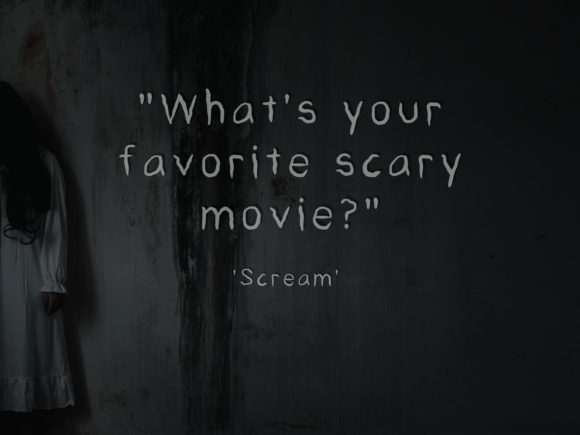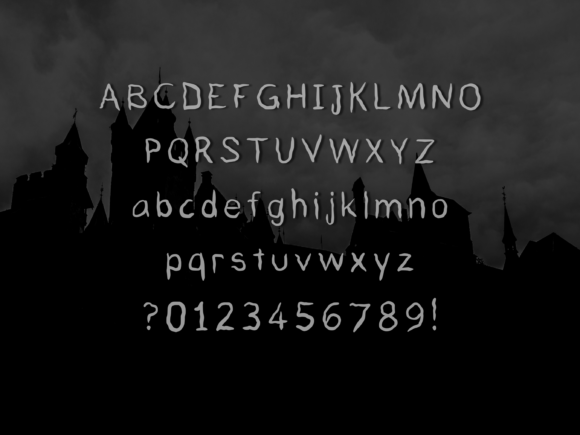
Introduction to Quiver Font
Have you ever been working on a creative project, pouring your heart and soul into it, only to be stuck on the perfect font to convey the atmosphere you envision? I’m sure many designers have been there, searching for that elusive typeface that will elevate their design from ordinary to extraordinary. For those who crave a touch of eeriness and suspense in their work, I’m excited to introduce you to the Quiver Font – a handwritten typeface that will make your designs shiver with fear.
Whether you’re designing a spine-tingling poster, crafting a chilling party invitation, or adding a haunting touch to your haunted house décor, the Quiver Font is the perfect design resource to deliver an unmistakable aura of fright and trepidation. With its unique, hand-drawn style and transparent background, this high-quality font is a must-have for designers who want to take their creative projects to the next level.
Key Features of Quiver Font
- High-quality, unique font design ideal for creative projects, with a transparent background that allows for seamless integration with any design.
- Designed with precision and care, the Quiver Font boasts a high-resolution (up to 300 DPI) and scalable design, perfect for use in print and digital media.
- Unique characteristics include its modern, minimalist aesthetic and versatile style, making it suitable for a wide range of creative projects, from branding to editorial design.
Honest Review: Quiver Font
As a designer, I’m always on the lookout for high-quality design resources that can elevate my creative projects. Recently, I stumbled upon the Quiver Font, and I must say it’s been a game-changer for me.
Here are some aspects that work well for me:
- ✨ Unique and creative style that adds a touch of sophistication to any project.
- ✨ High-quality design that’s perfect for logos, branding, and other design elements.
- ⚠️ The font doesn’t have a transparent background option, which can make it difficult to use in certain design scenarios.
- ⚠️ The font family is relatively small, which can limit its versatility in certain projects.
Overall, I’m impressed with the Quiver Font’s unique style and high-quality design. While it may have some limitations, it’s an excellent addition to any designer’s toolkit. I’d definitely recommend it for any creative project that requires a touch of elegance and sophistication.
Quiver Font
The Quiver Font is a versatile and stylish design resource perfect for any creative project. With its high-quality design and transparent background, it’s a great addition to any design arsenal.
– Quiver Font is a great choice for Canva users looking to add a touch of elegance to their designs.
– The Quiver Font can be used in conjunction with other design elements to create stunning visuals.
– Quiver Font is a great choice for presentations and documents where a touch of sophistication is needed.
To get the most out of the Quiver Font, try using it in combination with other design elements, such as images and graphics. Experiment with different font sizes and styles to create a unique look.
The Quiver Font is commonly used in a variety of design projects, including:
- Infographics and visualizations
Comparison to Quiver Font: While Quiver Font is more formal and elegant, Great Vibes is more playful and casual. Great Vibes is better suited for creative projects that require a touch of personality, whereas Quiver Font is more versatile and can be used in a variety of contexts.
Comparison to Quiver Font: While Quiver Font is more modern and sleek, Alex Brush is more traditional and elegant. Alex Brush is better suited for creative projects that require a touch of sophistication, whereas Quiver Font is more versatile and can be used in a variety of contexts.